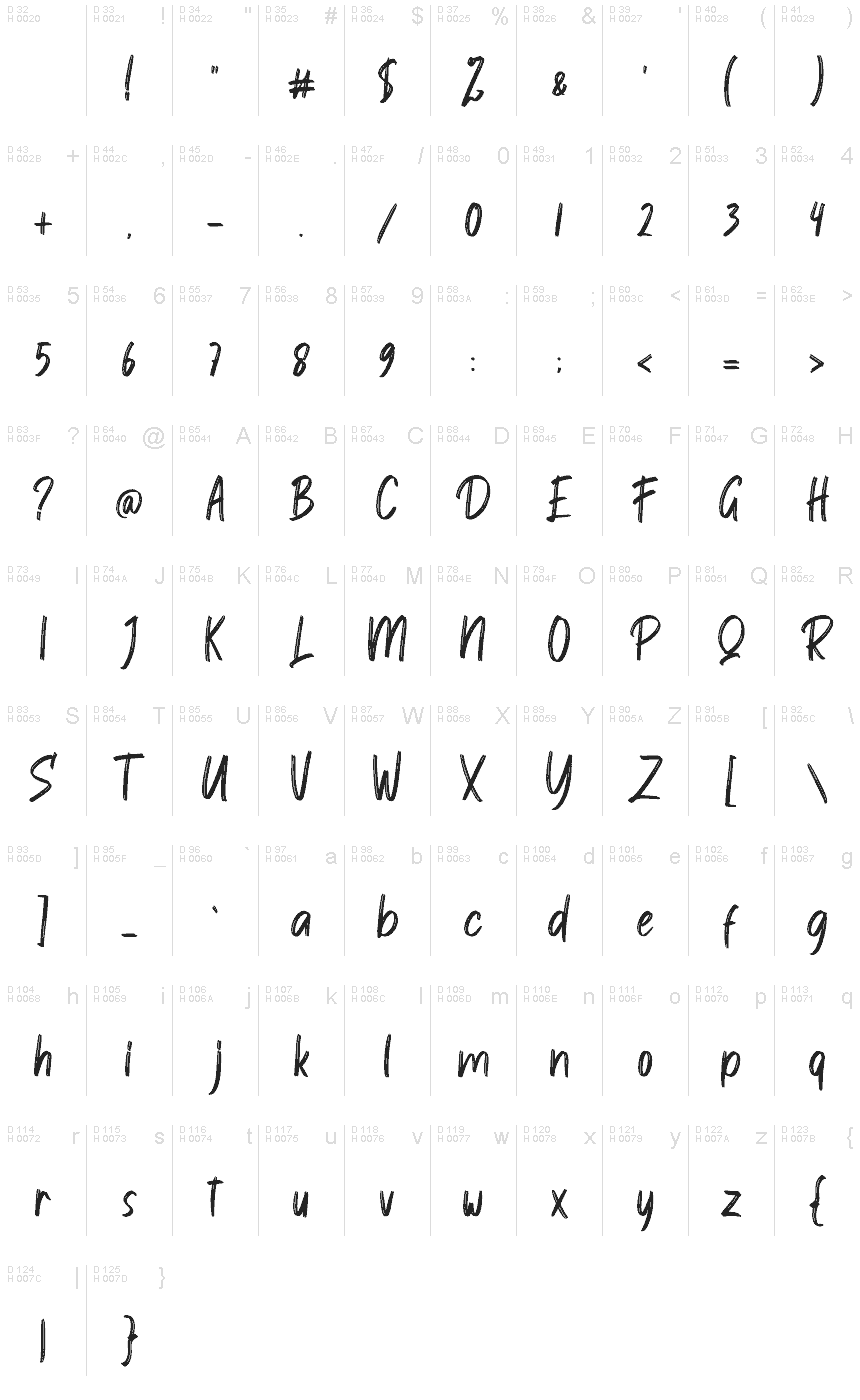
Diside
Diside font by Skiiller Studio is an expressive free brush font that captures a modern, energetic atmosphere. Its artistic and casual design radiates elegance with a brush-like texture. The font is lively, powerful, and versatile making it fitting for contemporary branding projects.